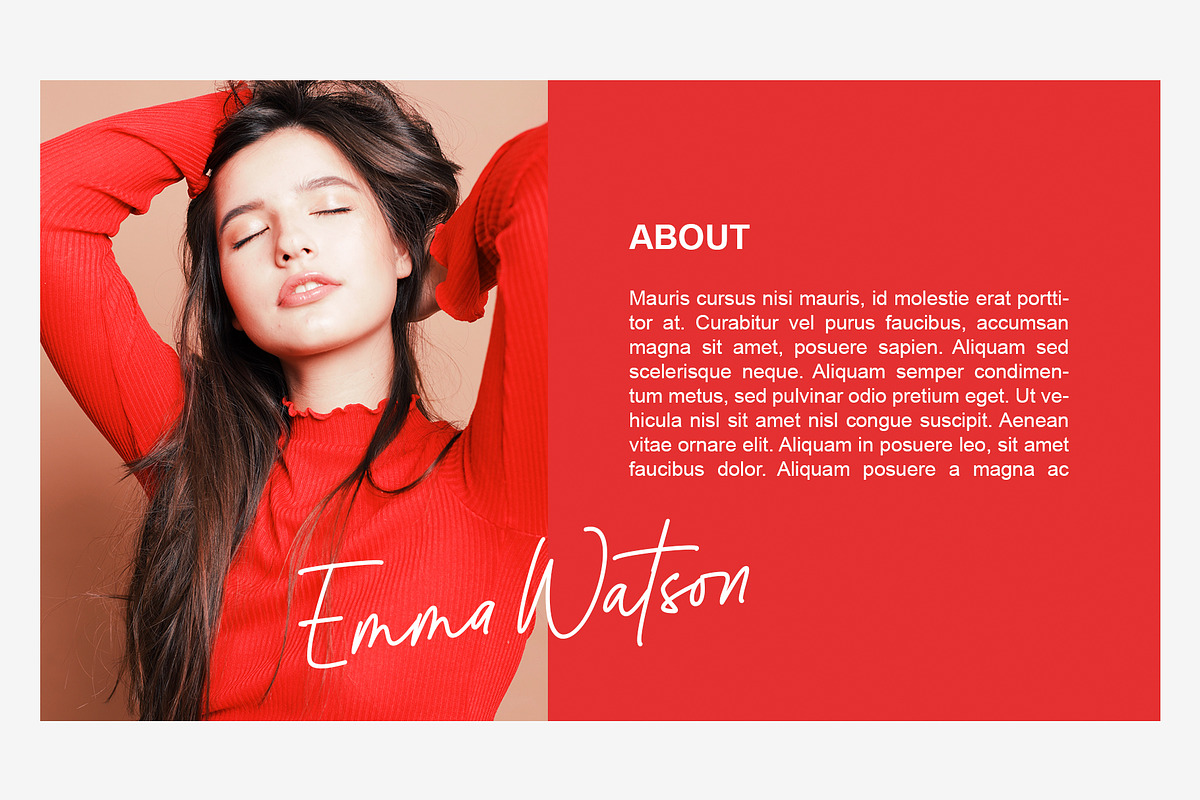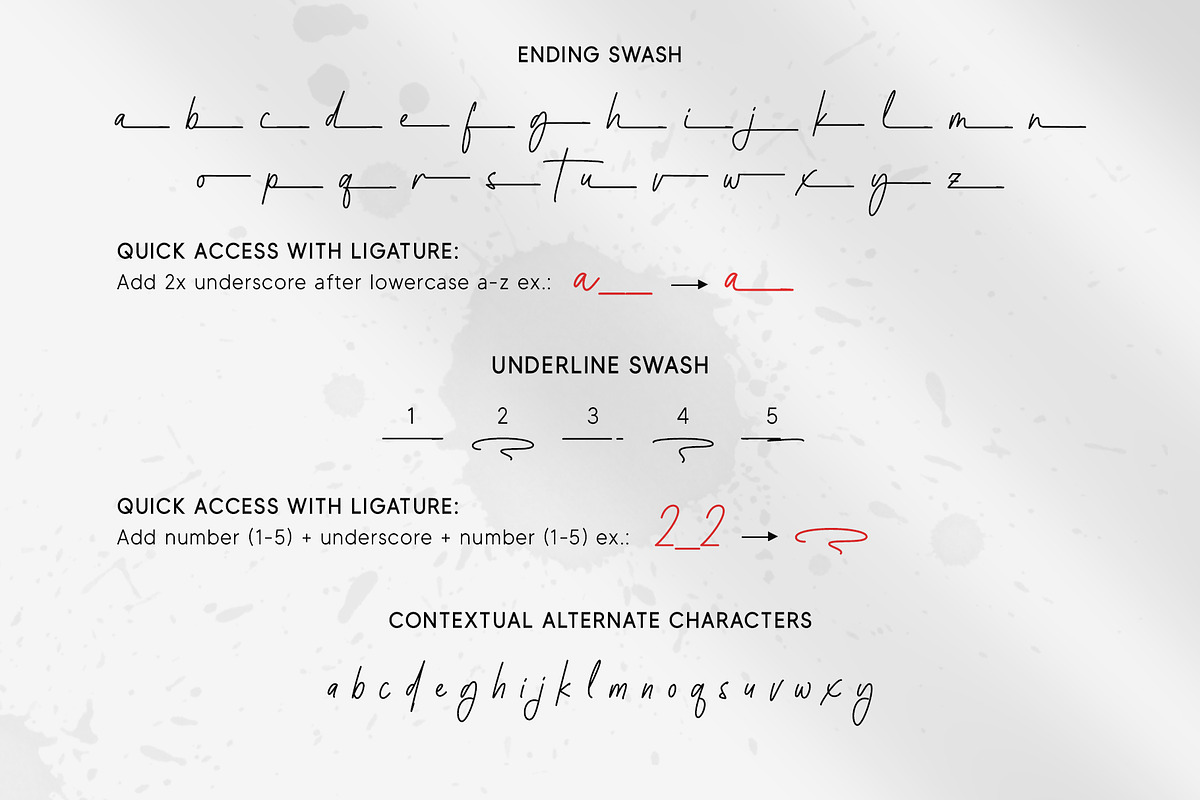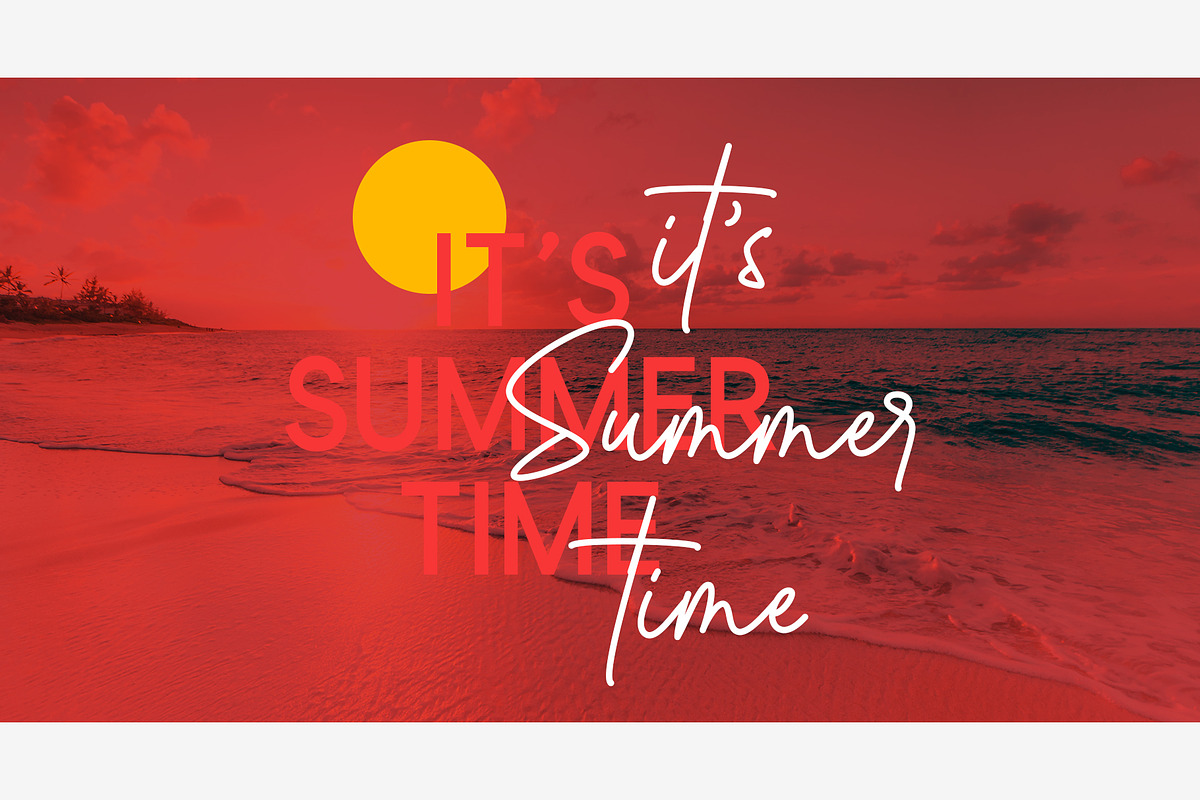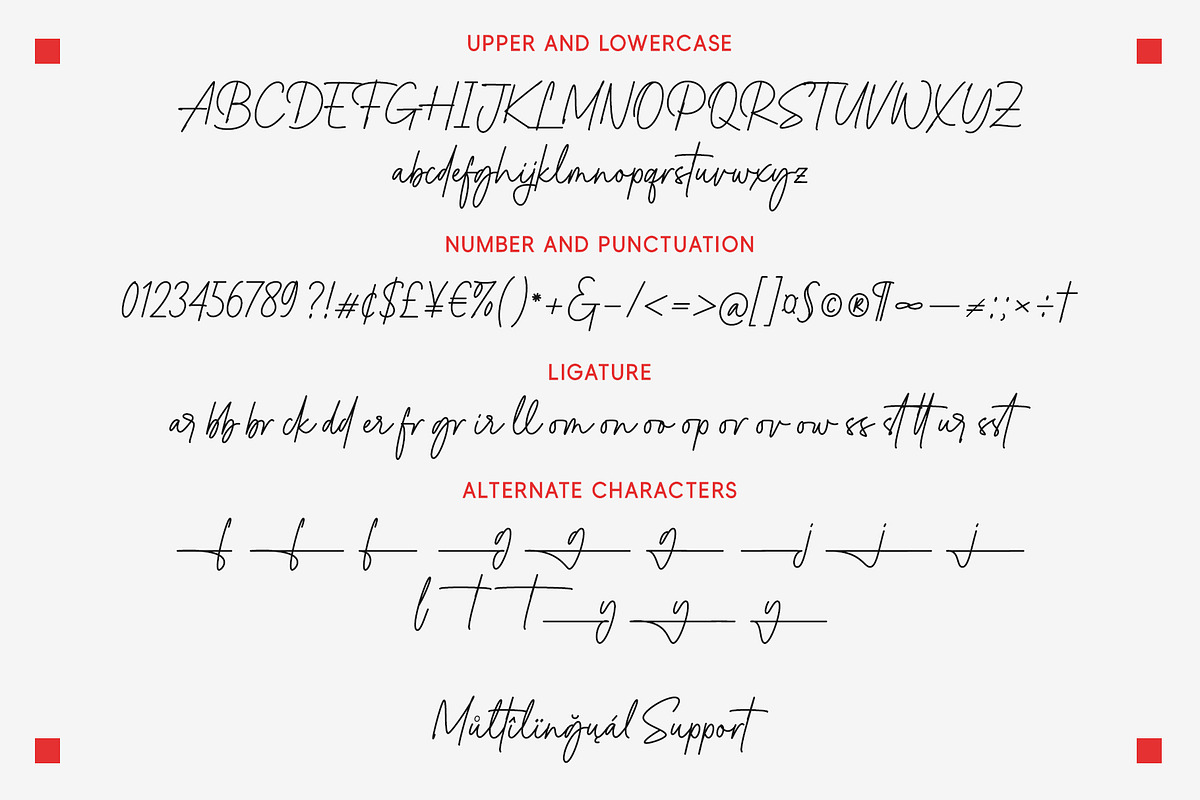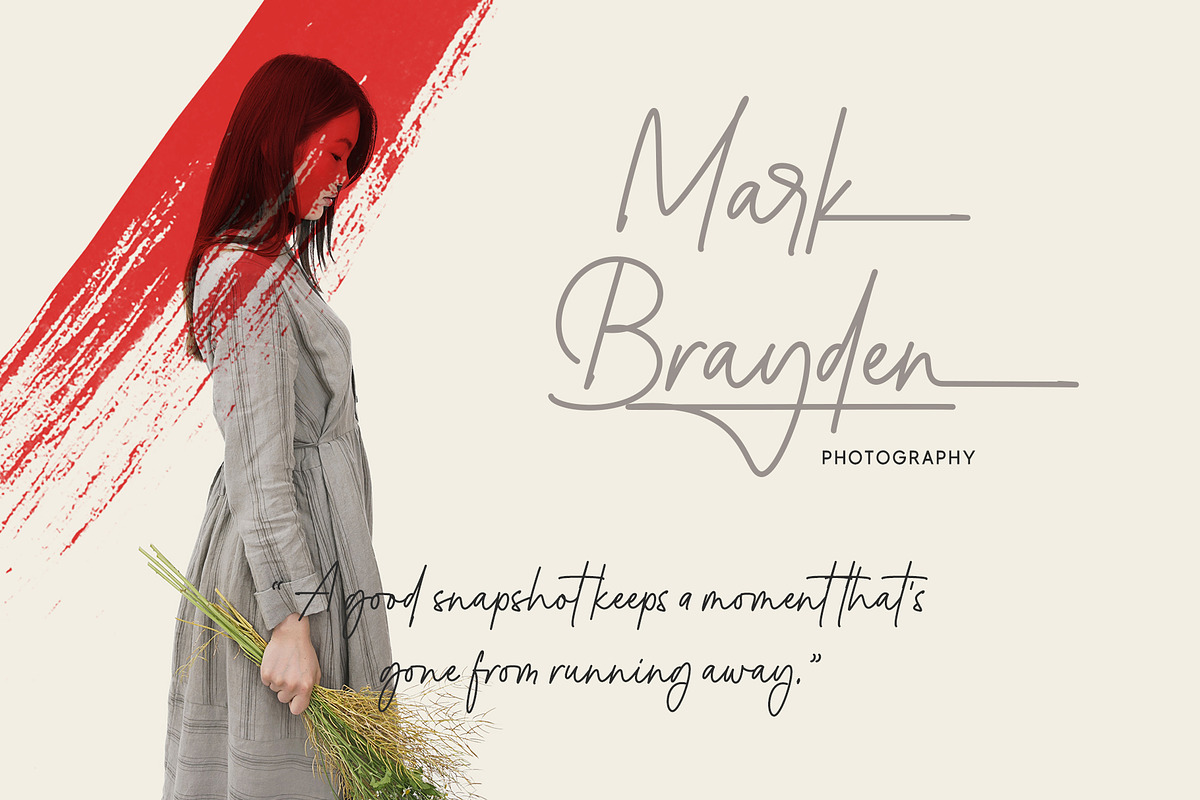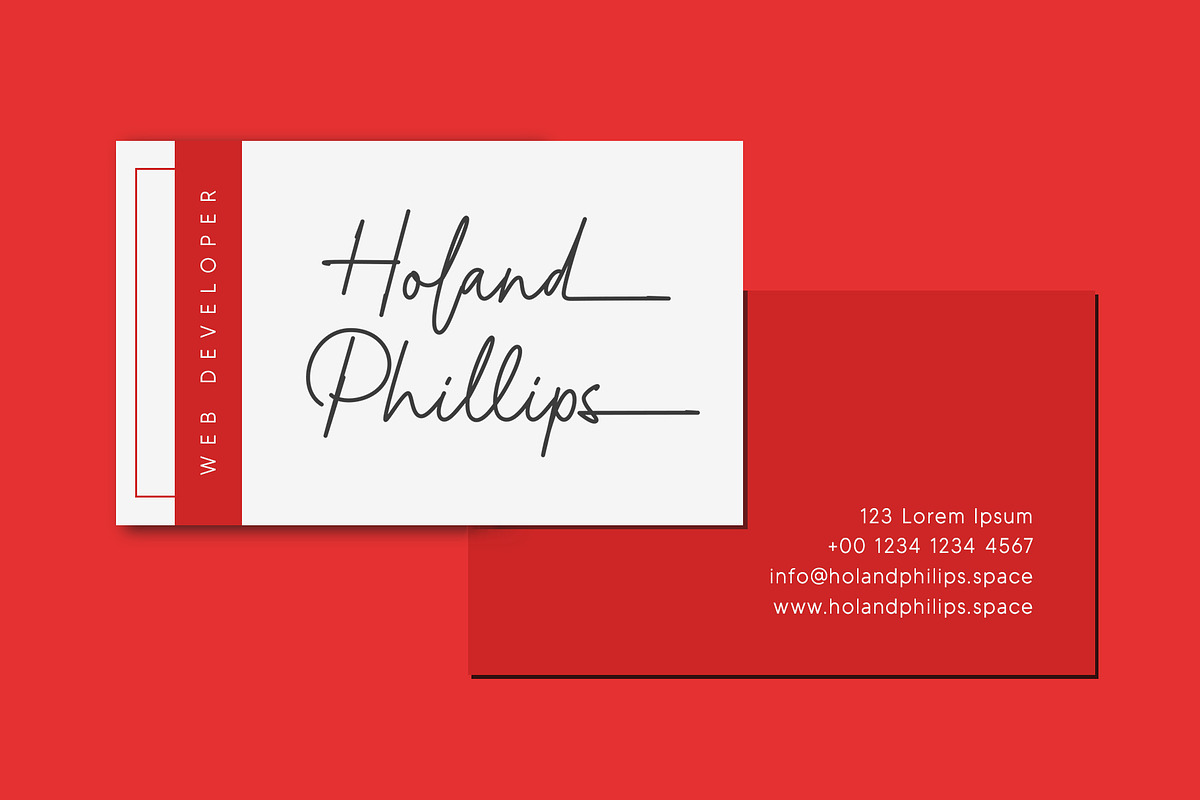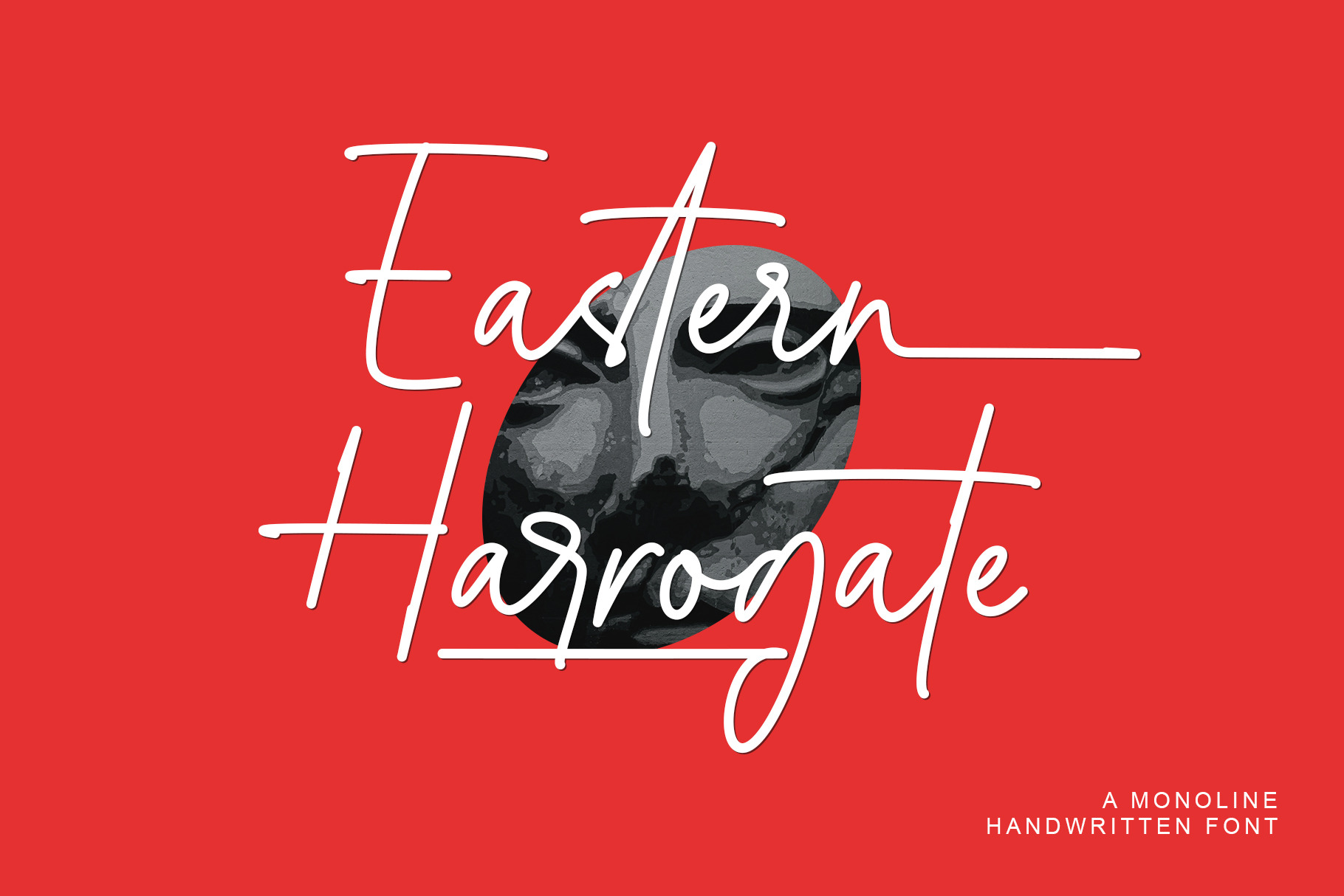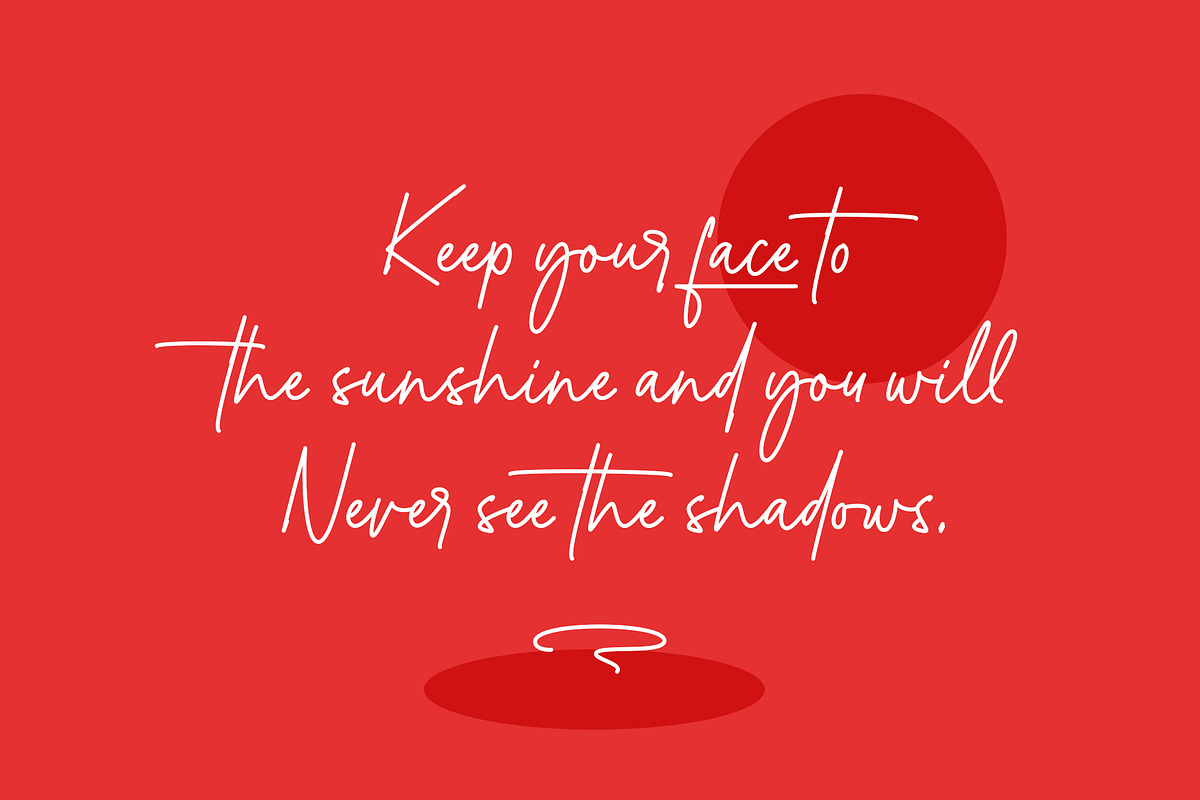
Eastern Harrogate | Monoline Font
Eastern Harrogate is a beautiful handwritten font, with a monoline style. Is perfect for many different project such as logos & branding, invitation, stationery, wedding designs, social media posts, advertisements, product packaging, product designs, label, photography, watermark, special events or anything.This font is PUA encoded which means you can access all of the glyphs and swashes with ease!
- Contextual Alternate
Quick access
- Titling: Add 2x underscore before lowercase a-z. Ex: __a
- Swash: Add 2x underscore after lowercase a-z. Ex: a__